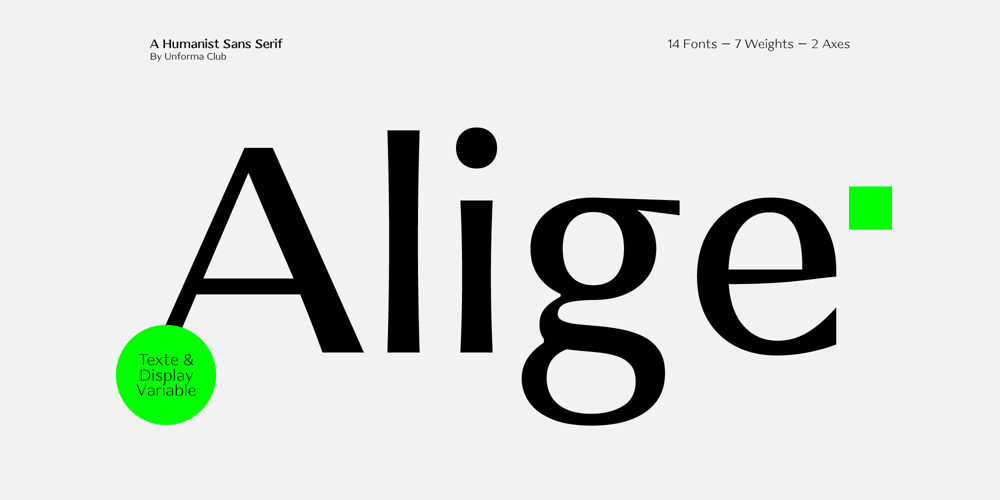
Alige Font Family was designed by Taufik Oktama and published by Unforma Club. Alige contains 28 styles and family package options. Alige is a humanist sans serif typefaces made for body text and display. Carried classic roman proportion in higher letterform for better reading experence. Inspired by Optima Nova which designed by Hermann Zaph in early 50’s, alige contains 28 cuts which 14 style in text and 14 in display. Kindly visit Alige Playground for more detail presentation.